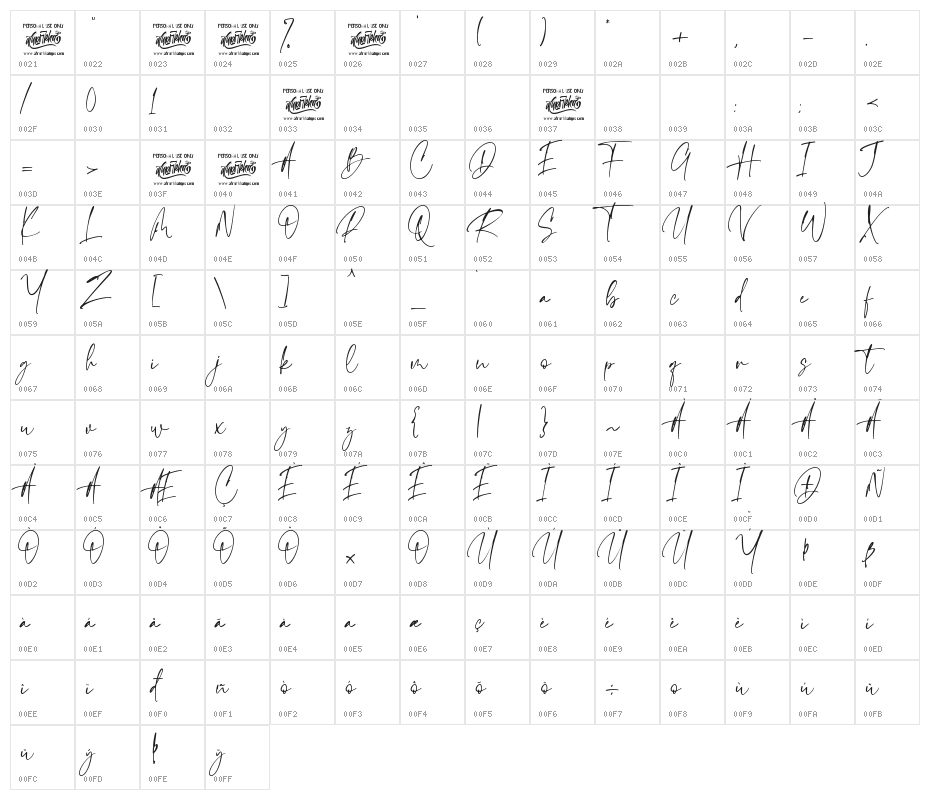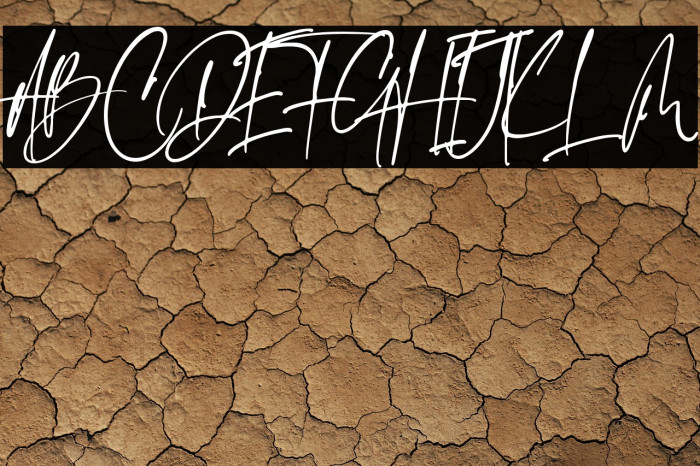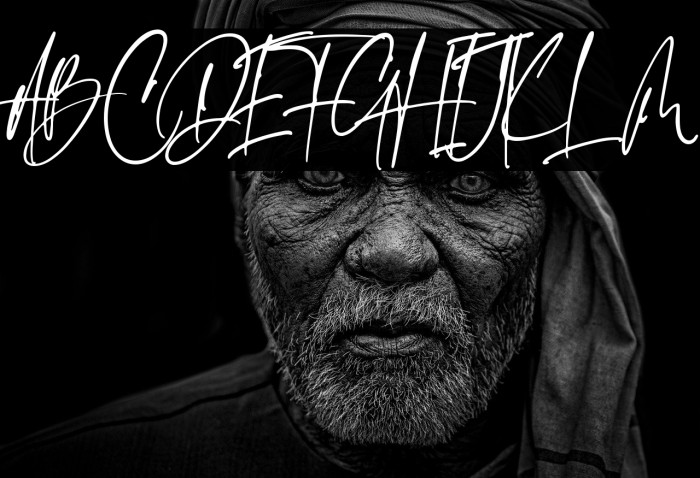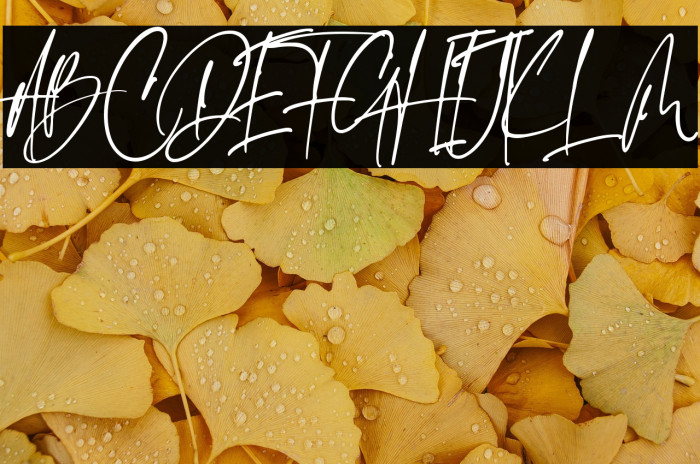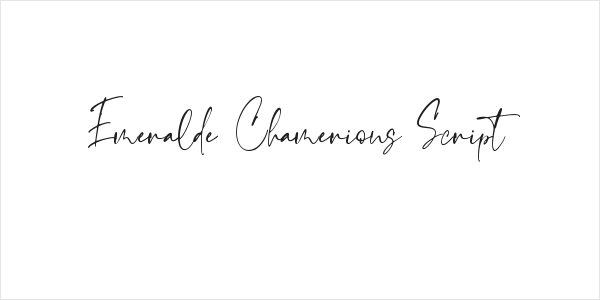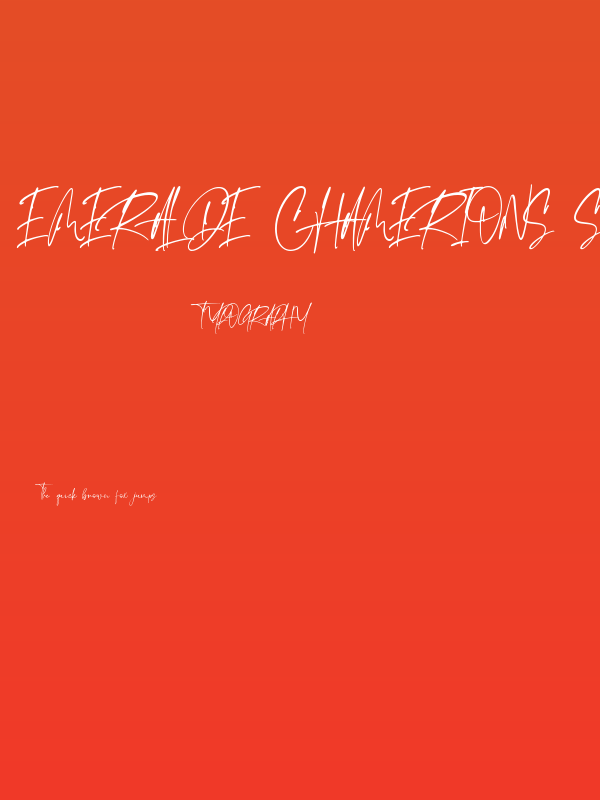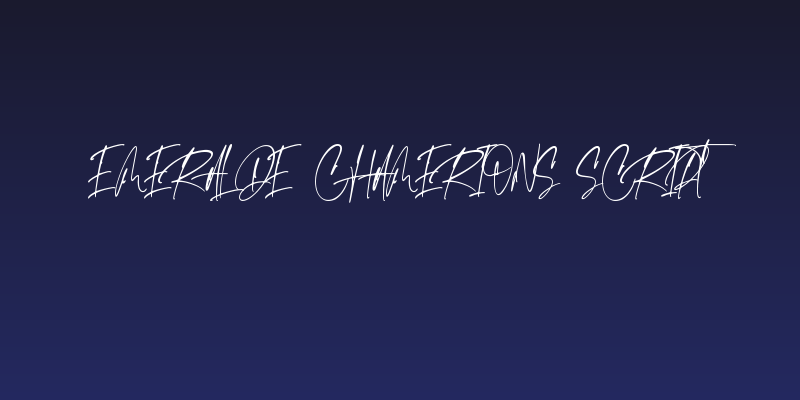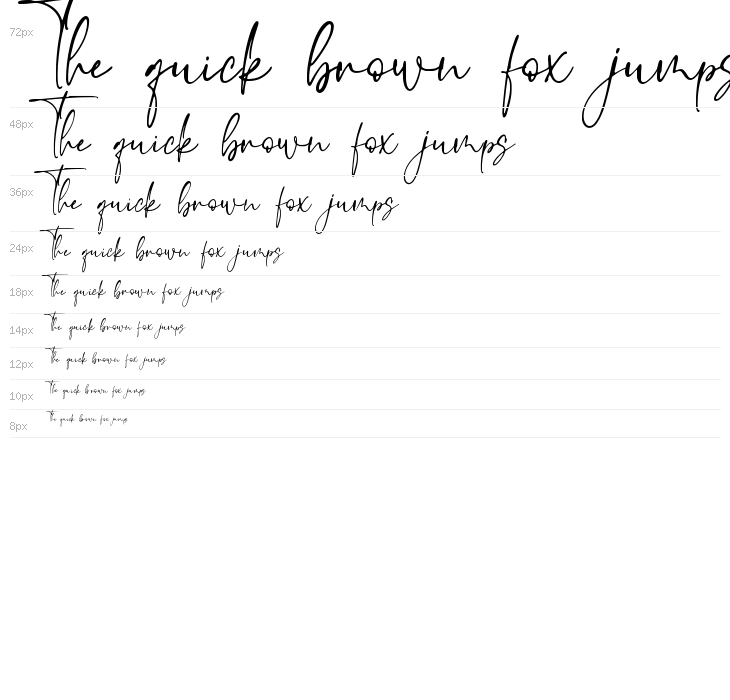
Emeralde Chamerions Script Font
Emeralde Chamerions Script Description
This script font exudes an elegant and artistic flair, characterized by its flowing, cursive strokes that mimic the fluidity of handwriting. The uppercase letters are bold and expressive, with dramatic loops and swirls that add a sense of movement and dynamism. The lowercase letters maintain a consistent style, offering a more subdued yet equally graceful appearance. The numerals and special characters are crafted with the same attention to detail, ensuring a cohesive look throughout. This font's overall design is both sophisticated and approachable, making it suitable for a variety of creative applications.
| Overall Style | Elegant, Artistic |
| Use Case | Logos, Invitations, Artistic projects |
| Proposed Projects | Ideal for wedding invitations, branding, greeting cards, and artistic projects. |